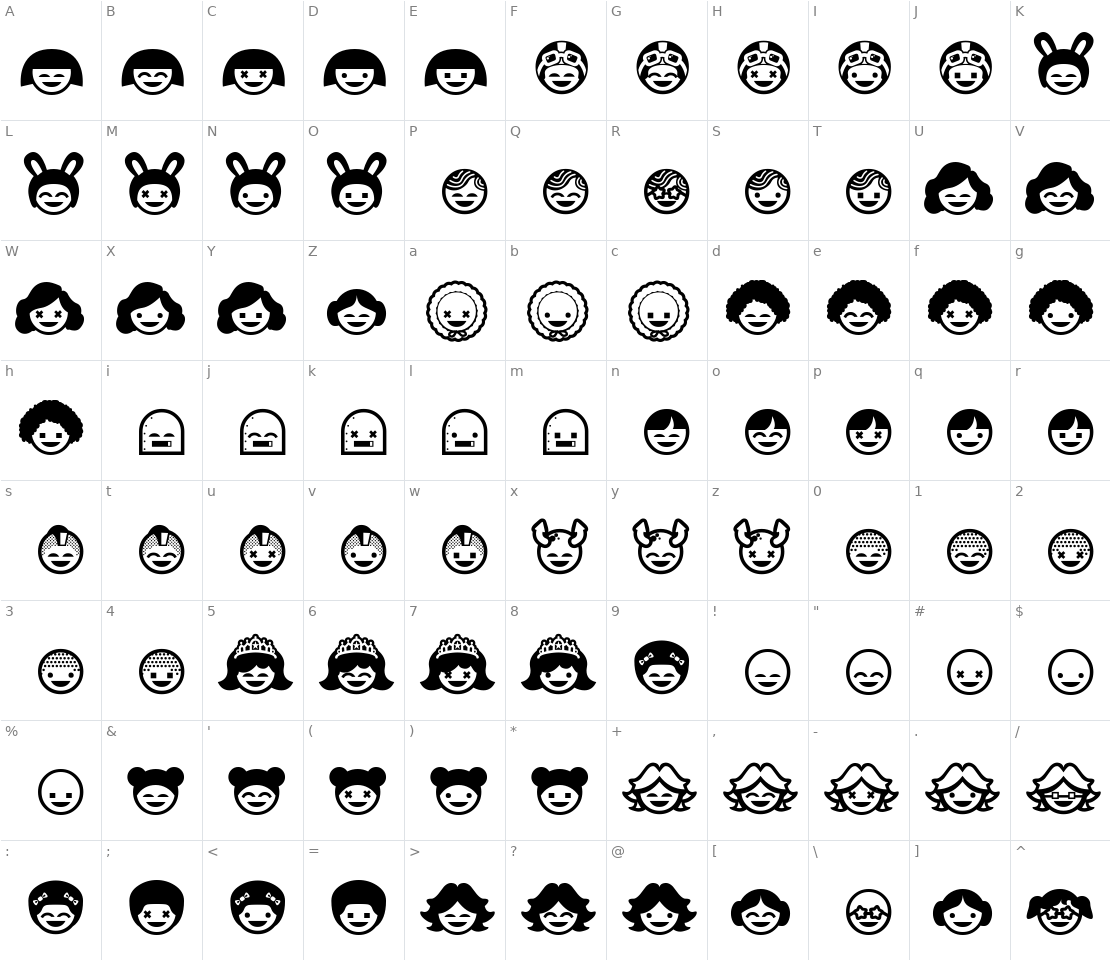
SkiPop
SkiPop is a dingbat font from Fontalicious filled with cartoon faces and expressive character icons, each one simple and exaggerated enough to read clearly at small sizes. The style is playful and lighthearted, with a range of emotions and expressions that work for informal projects, stickers, social media graphics, or anywhere a quick visual shorthand for mood beats typing out words.